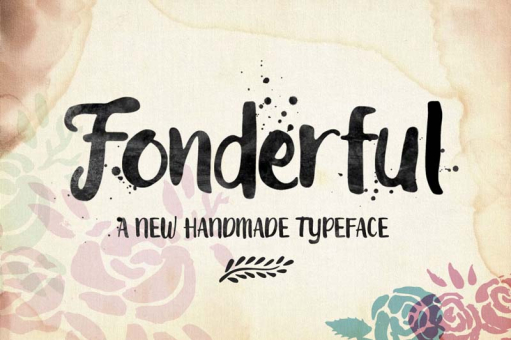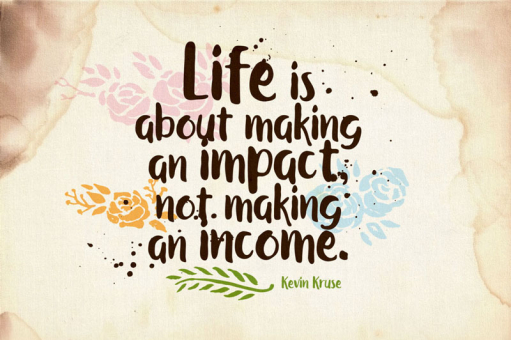
Fonderful
Fonderful is a hand-painted typeface to give you a natural sense in your design. Stylistic alternates and ligatures give you the flexiblity to choose the best letter combination. Suitable for poster, quote, natural typography design, headline and more. Add splatter or ornament to create an organic and vintage design.